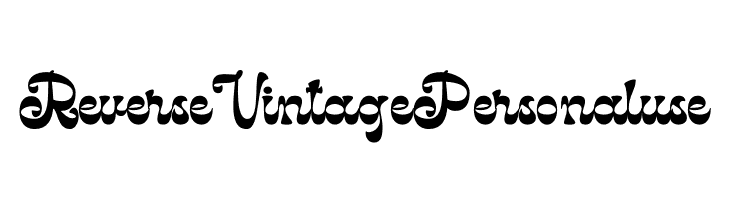
A decorative, vintage-style font with intricate loops and swirls.
A playful and artistic handwritten font with elegant loops and curves.
An elegant script font with flowing, cursive style and intricate loops.
A cursive, handwritten font with elegant loops and dynamic strokes.
A bold, decorative font with vintage swirls and loops.
A decorative script font with elegant loops and swirls.
A flowing, cursive script font with elegant loops and swashes.
A graceful script font with elegant loops and swashes, reminiscent of classic calligraphy.
An elegant script font with flowing, cursive style and graceful loops.
An elegant script font with flowing, cursive style and intricate loops.